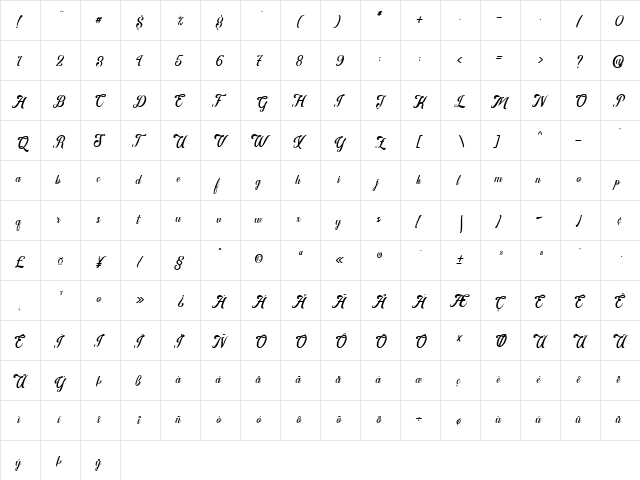
Agressive Rhytmes Regular
Design Context for Agressive Rhytmes Typeface
Agressive Rhytmes is a composed and adaptable typeface that performs quietly and consistently across a wide range of design contexts.